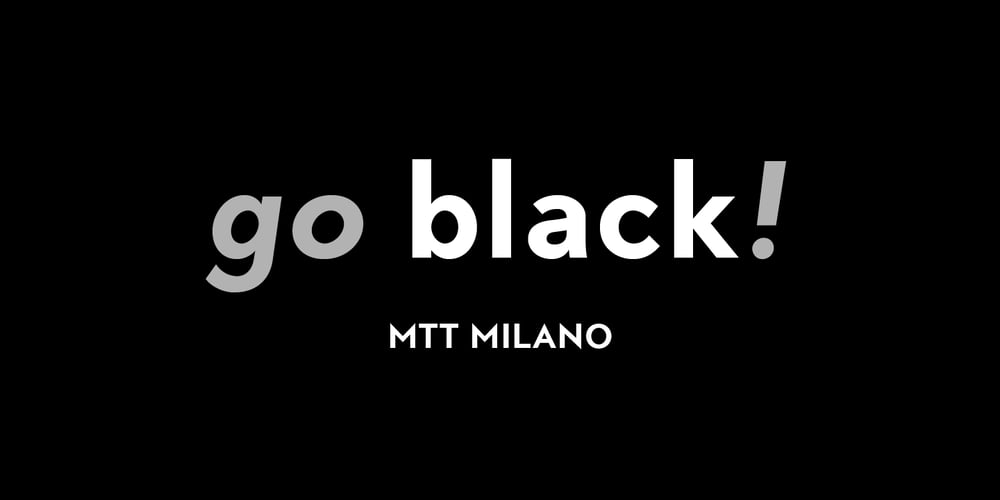
MTT Milano Font Family was designed by Mattia Bonanomi and published by MTT Type Firm. MTT Milano contains 10 styles and family package options. MTT Milano is a font inspired by the Milanese typographic heritage and the Futurist movement that developed it. Drawn from scratch, it features ascendants and descendants slightly taller than what can usually be found in similar typefaces, in order to improve its elegance. Whilst maintaining a good readability in body-text, this family meets its peak when displayed in medium-big sizes. There are five weights — from regular to black — each with their matching italic, ligatures and extended language support resulting in a full, flexible, ten fonts family.